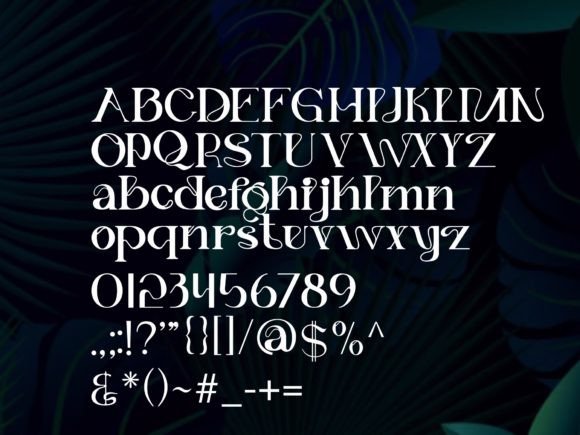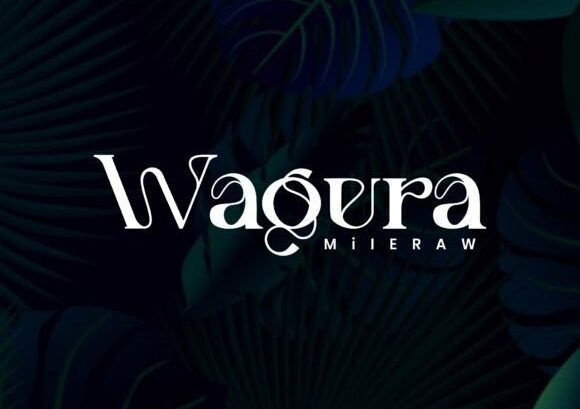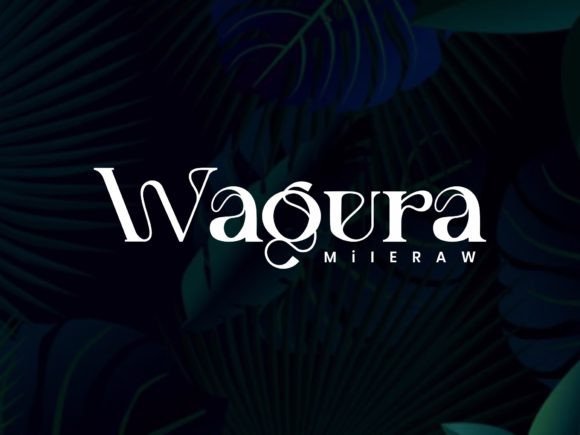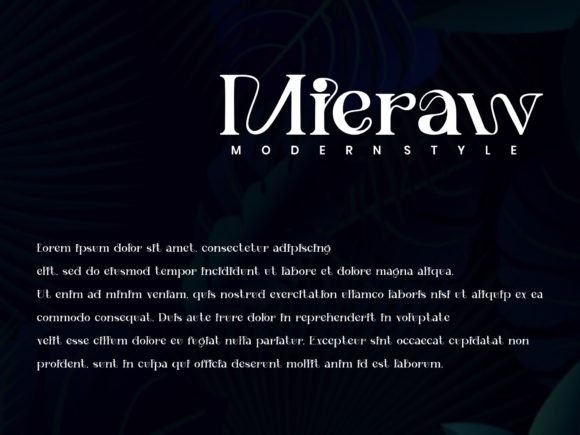
Mieraw Font
MIERAW FONT SPECIMEN
Mieraw is a simple and unique Slab Serif font perfect for logo designs, magazines, social media, brochures, and many more.